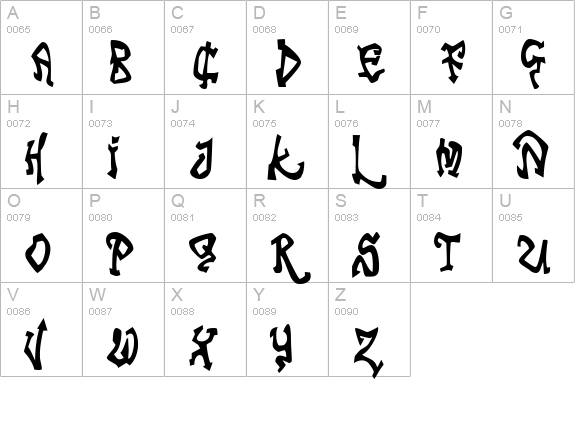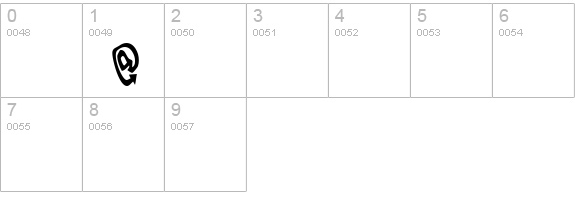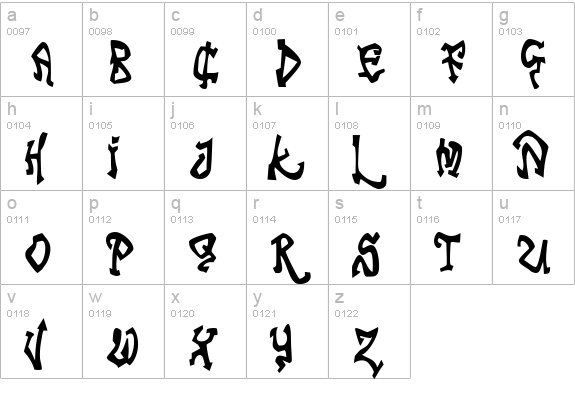
Tribal Funk Font Details
Introducing Tribal Funk, a captivating and expressive font that effortlessly combines the elements of tribal art with a touch of funky modernism. This unique typeface is bound to make a statement with its bold and intricate letterforms, which exude a sense of energy and rhythm. Tribal Funk is not just a font - it's a visual journey that takes you on a vibrant exploration of cultural heritage and contemporary design. The fusion of tribal patterns and funky aesthetics creates a harmonious balance between tradition and innovation. Each letter is meticulously crafted, showcasing the intricate details that make this font truly mesmerizing. With Tribal Funk, your designs will transcend the ordinary and embrace a dynamic and captivating visual presence. Whether you're creating eye-catching posters, attention-grabbing headlines, or unique branding materials, this font will effortlessly elevate your creative projects to new heights. And the best part? Tribal Funk is free! That's right, this extraordinary font is freely available to download at FontsMarket.com. We believe that creativity should be accessible to all, and by offering Tribal Funk at no cost, we aim to empower designers, artists, and enthusiasts alike to explore their imagination and bring their ideas to life. So don't miss out on the opportunity to add Tribal Funk to your font collection. Download it today from FontsMarket.com and unlock a world of possibilities for your next design endeavor. Let your creativity flow and embrace the bold, mesmerizing allure of Tribal Funk.